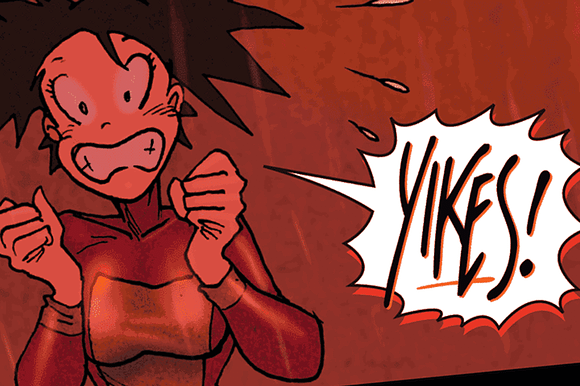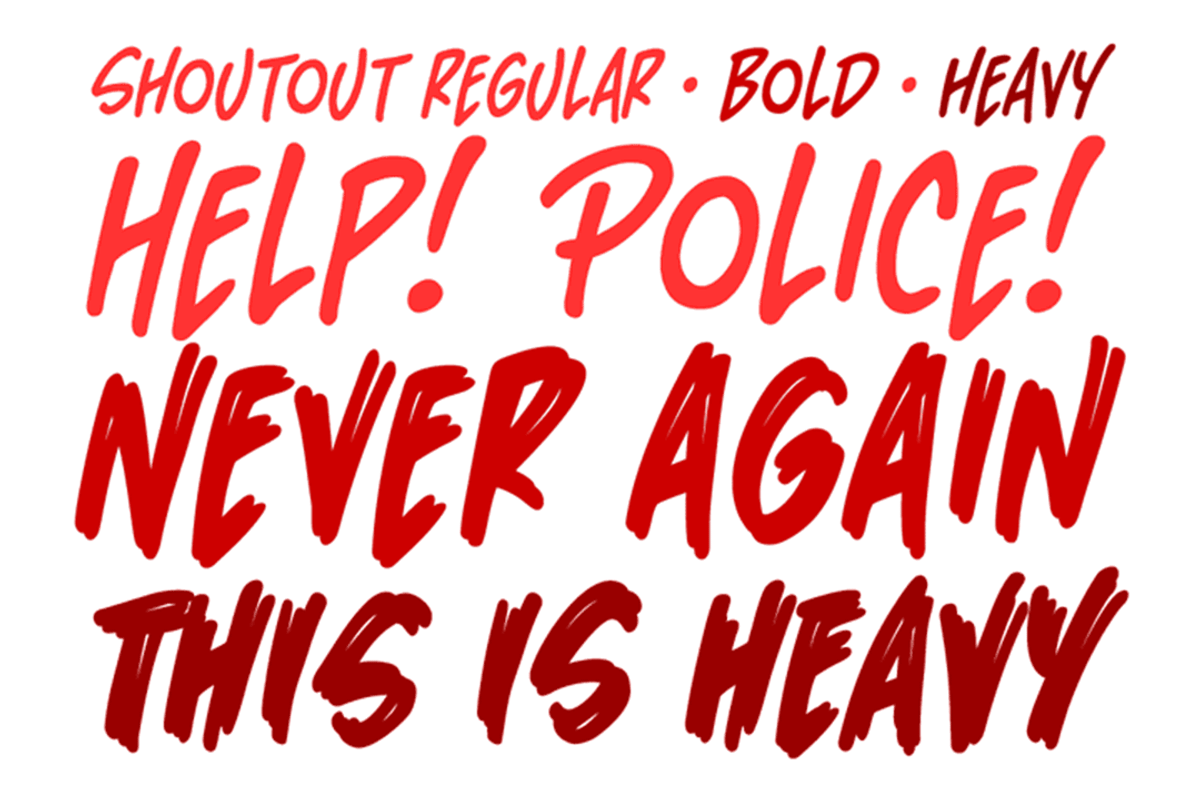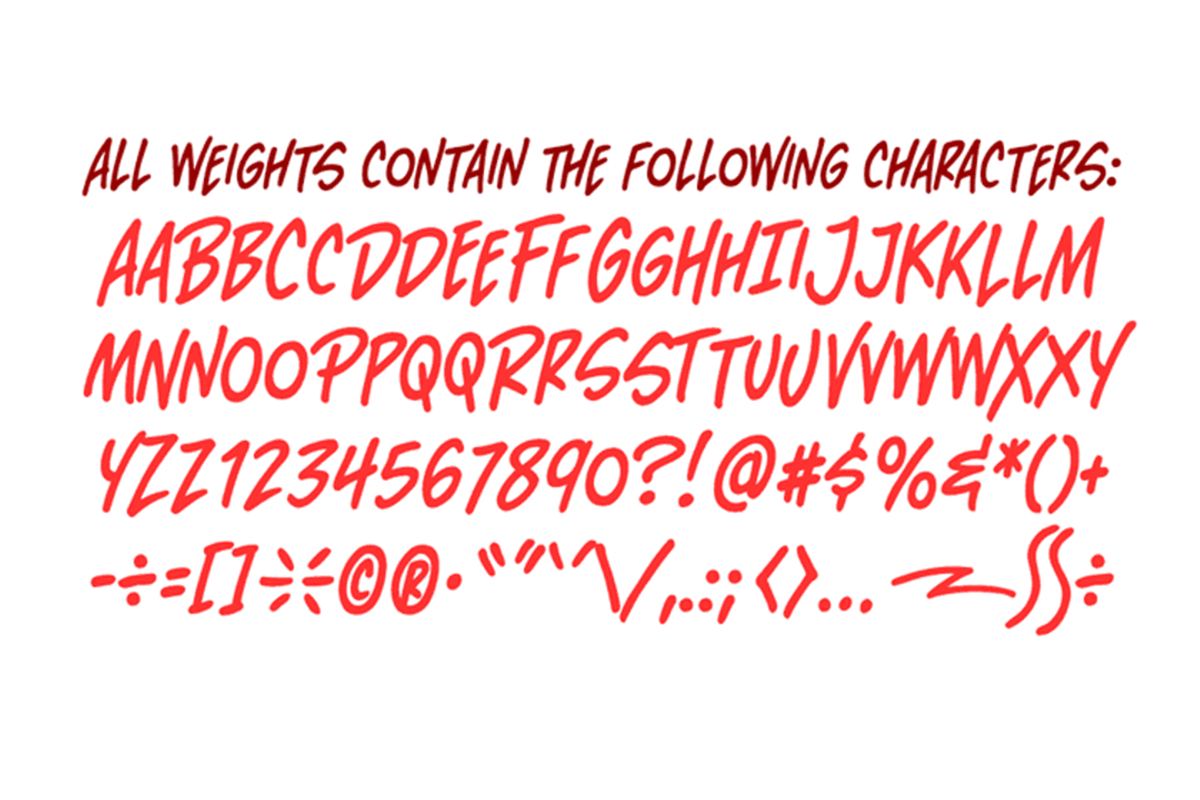
Shout Out
Here's a big shout out to all our Loud and Proud font homies -- If you've got a good set of lungs on you -- fill 'em up and get ready to Shout, SHOUT! Yes, let it all out because this is a font you can't do without -- It will make you wanna SHOUT! Throw your hands up, SHOUT! Kick your heels back, SHOUT! Throw your head back, SHOUT! Come on now, SHOUT! And don't forget to say you will... Don't forget to SHOUT! Yeah yeah yeah yeah, SHOUT! A little bit softer now, (Shout) A little bit louder now, SHOUT! A LITTLE BIT LOUDER NOW! SHOUT! SHOUT! PHEW -- Who says Comicraft doesn't know how to Pump it Up AND Get Down?!